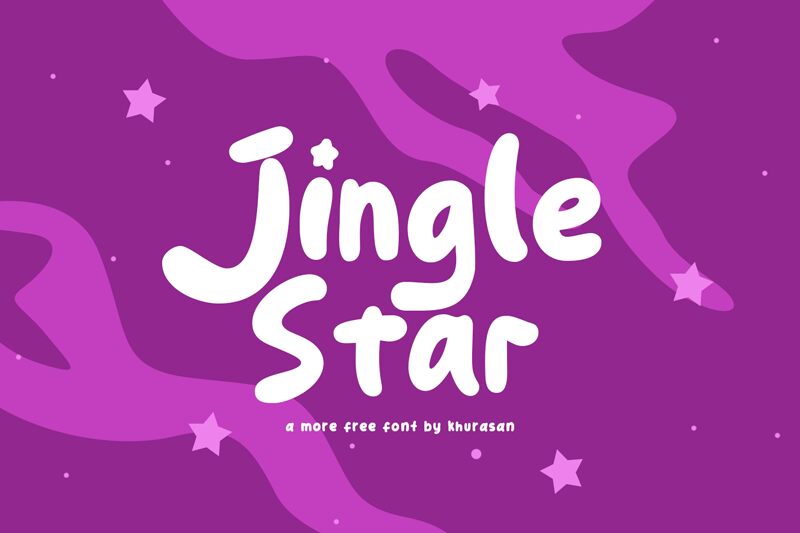
Jingle Star
Jingle Star, crafted by the talented designer Khurasan, is a captivating display font that adds a touch of whimsical charm to any project. With its semi-bold weight and playful cartoon style, this font is perfect for children's book covers, greeting cards, party invitations, and festive posters. Its delightful curves and lively strokes make it an ideal choice for creating eye-catching headlines and attention-grabbing signage. Let Jingle Star bring your designs to life with its charismatic personality and unique flair. Spread joy and merriment with this font suitable for all your creative endeavors!